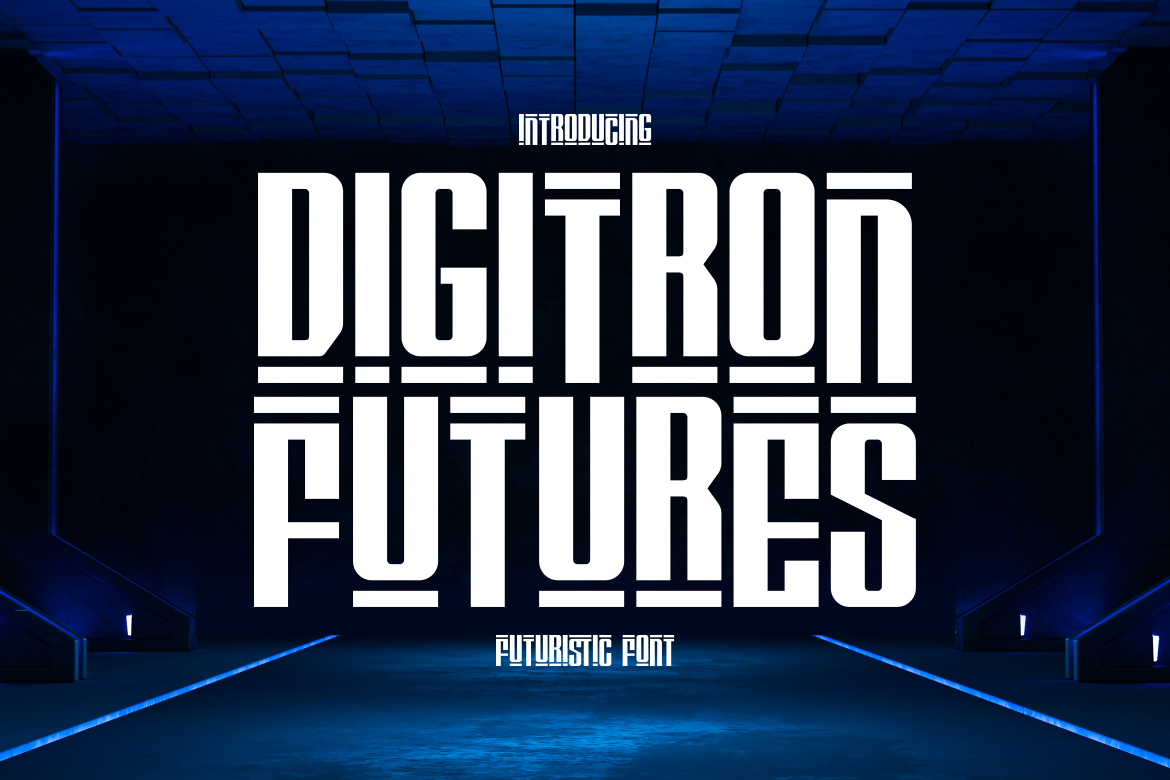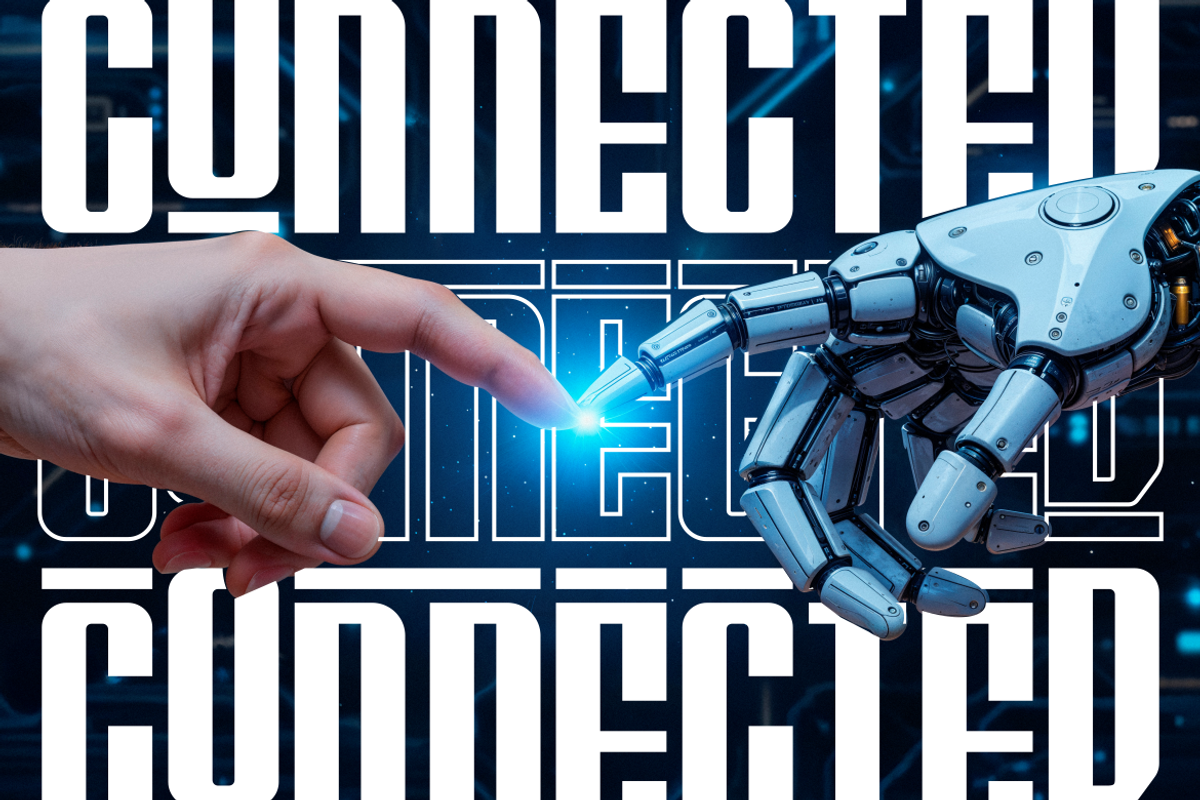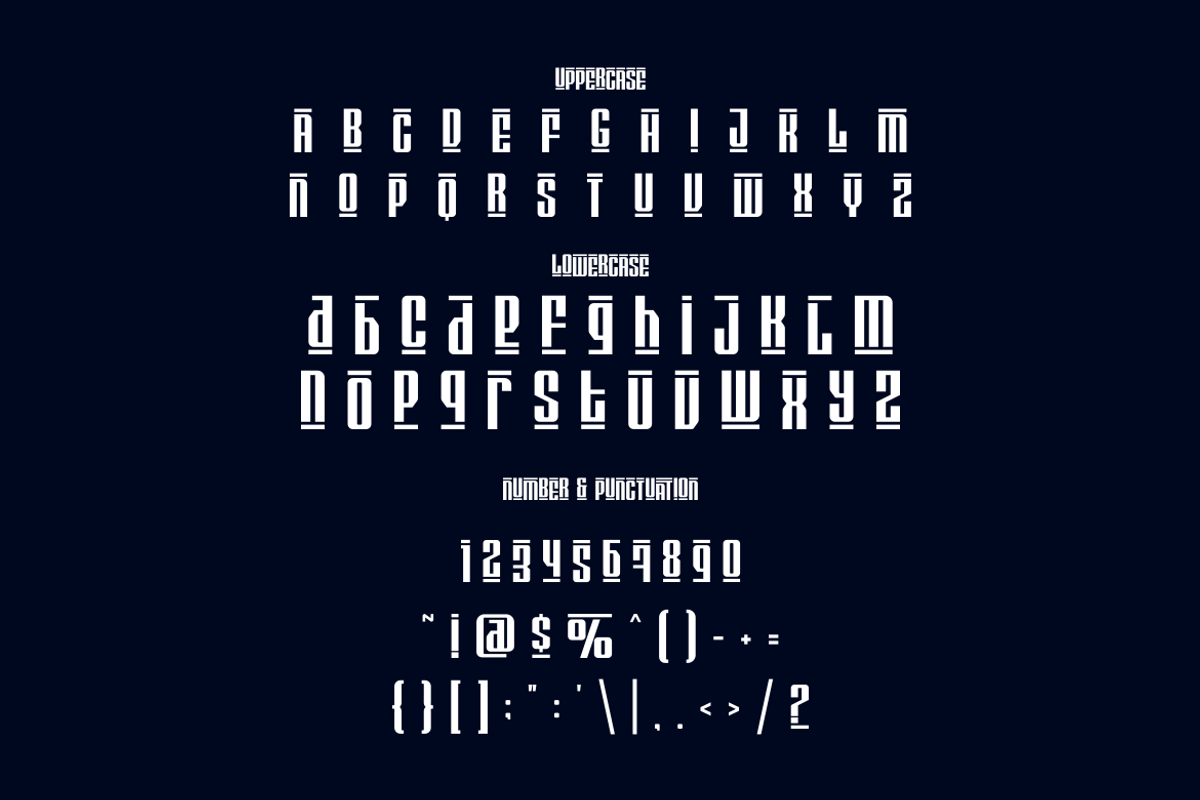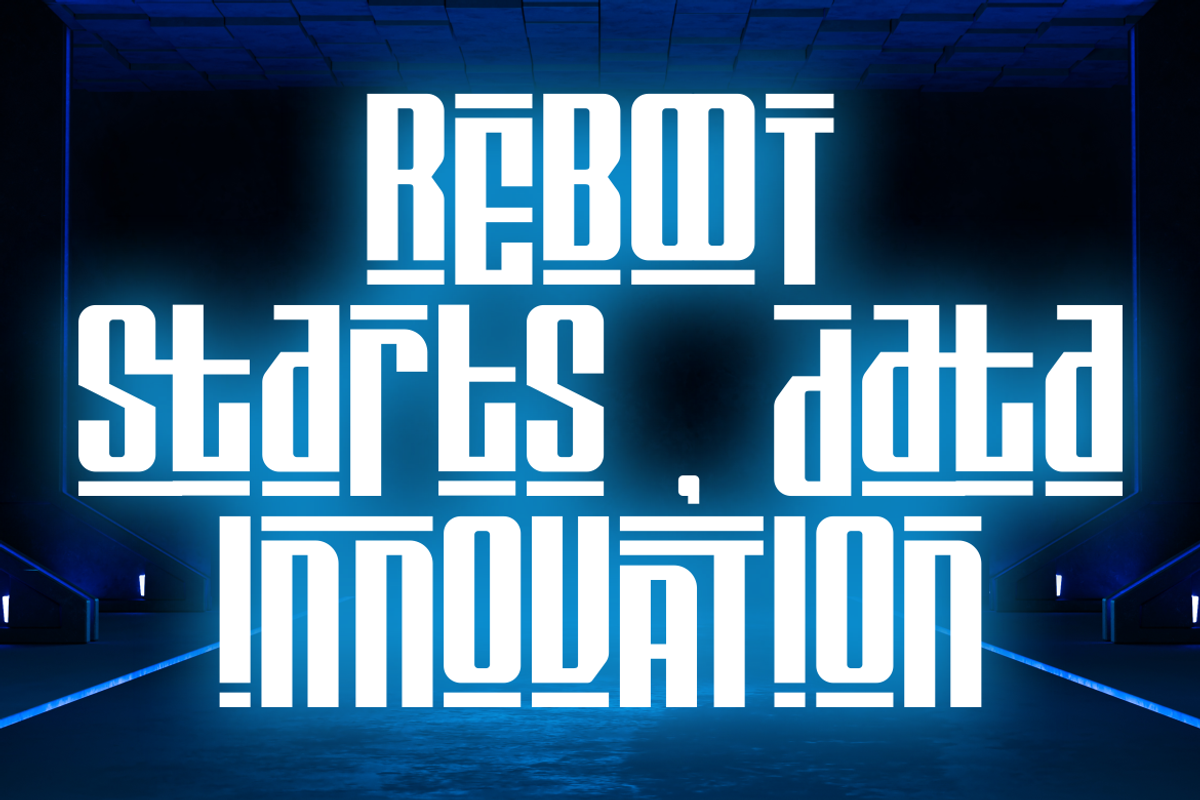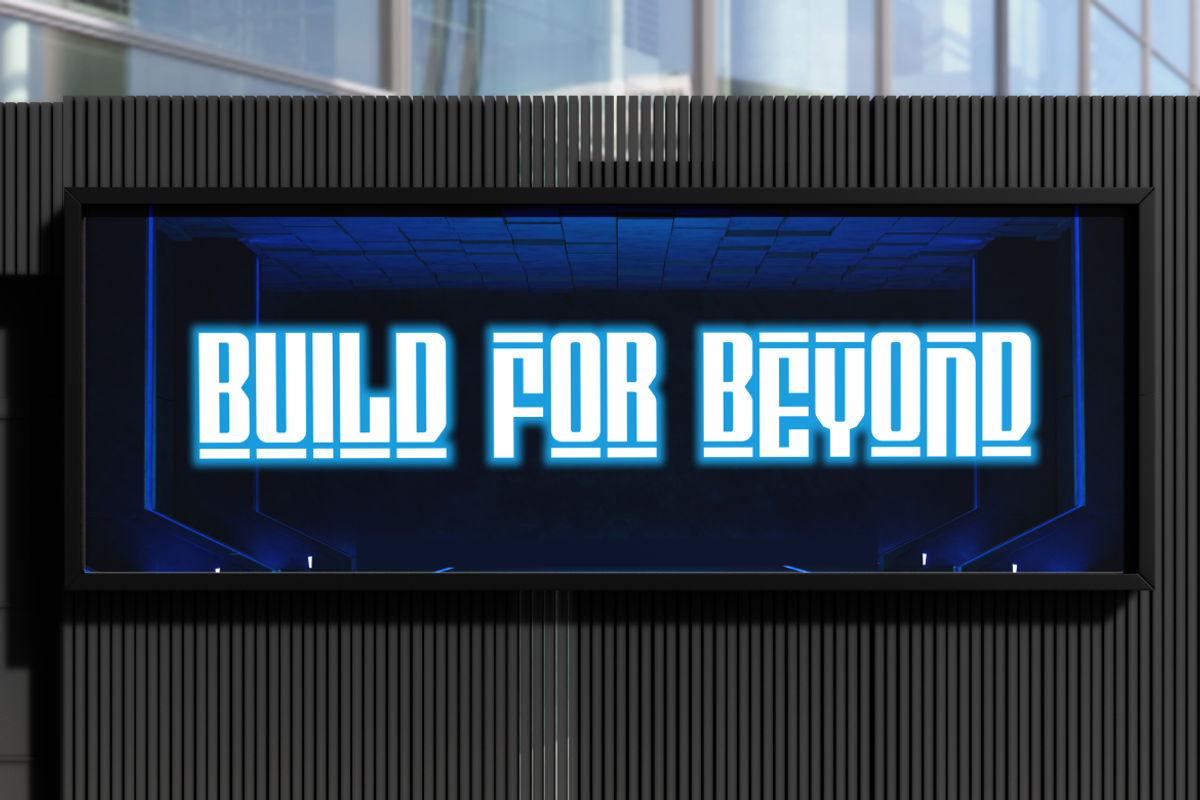
Digitron Futures Futuristic Font
Digitron Futures is a futuristic display font that exudes modern sophistication through its sharp geometry, symmetrical alignment, and digital-tech styling. Each letterform is built with strong vertical construction, compact proportions, and unique horizontal stripe accents, evoking a sense of artificial intelligence and precision-engineered systems. The uniform stroke weight and square corners make it ideal for sci-fi branding, digital product titles, and any layout that demands a bold, high-tech appearance. The consistent use of bar separators on characters like E, F, and T enhances the tech-driven aesthetic while reinforcing typographic unity.
Designed for the future-forward designer, Digitron Futures thrives in high-impact layouts such as movie posters, tech startup logos, and modern magazine covers. Its clean yet distinctive shapes ensure legibility across both print and screen formats, while its character set includes uppercase, lowercase, numbers, and a full range of punctuation. Whether used for branding, packaging, promotional materials, or editorial layouts, this font delivers a confident, digital-native voice that commands attention in today’s hyperconnected world.